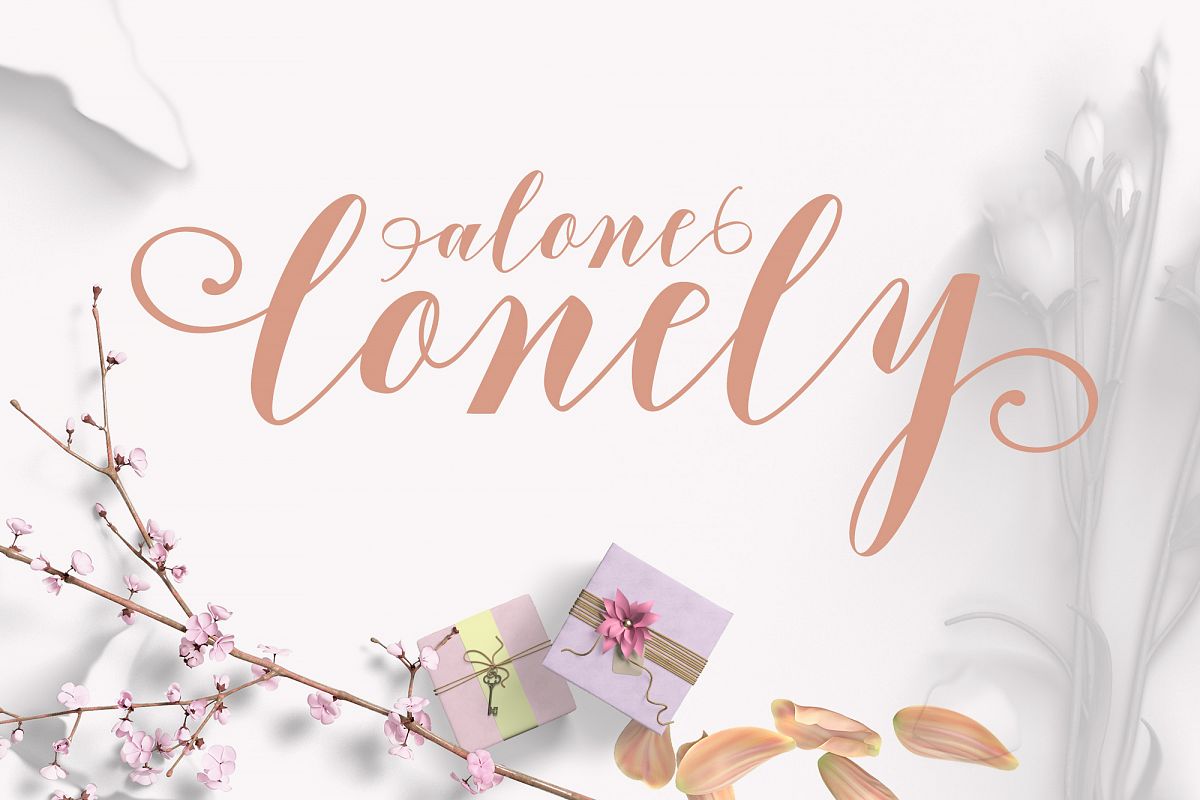
Hello ... introduce Lonely alone A beautiful hand made font for all you lovers of swash! It now includes alternatives to help you design their wedding invitations, place cards, etc.
Lonely alone is hand drawn, elegant, modern calligraphy is perfect for design projects wedding, invitations, greeting cards, signatures, watermarks, logos, handwriting and many more. fonts include several glyphs Stylistic Sets, Contextual Alternates, and Ligature. The OpenType features can be accessed by using OpenType savvy programs such as Adobe Illustrator and Adobe InDesign.
. Basic Latin A-Z and a-z
. Numbers
. International Symbols Support